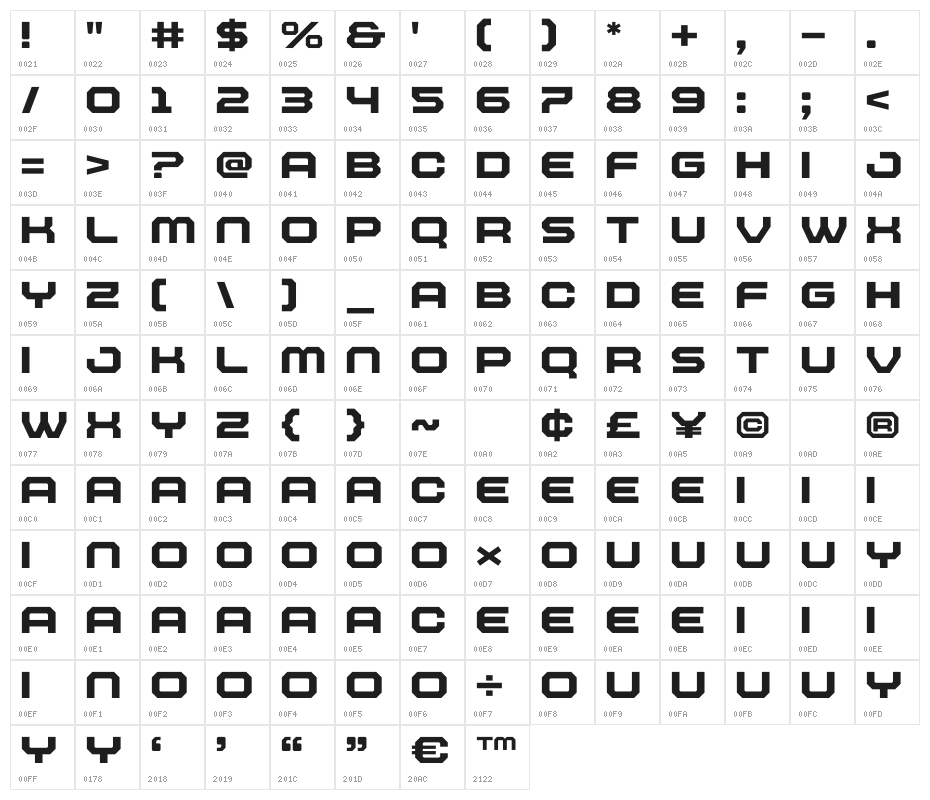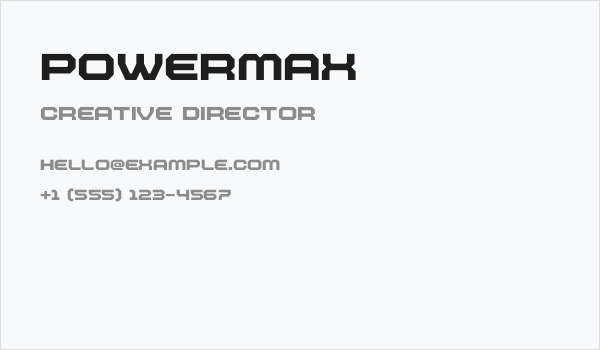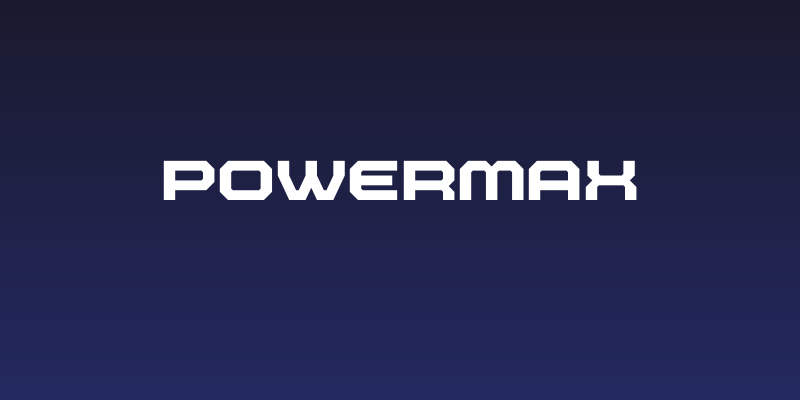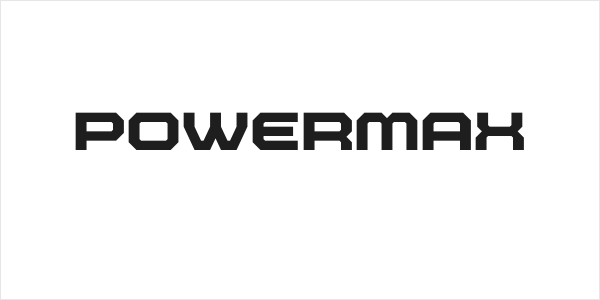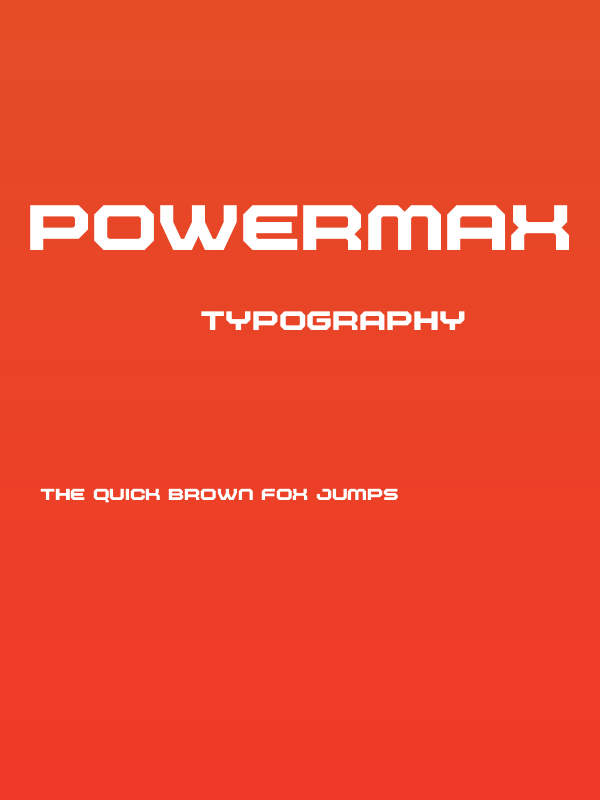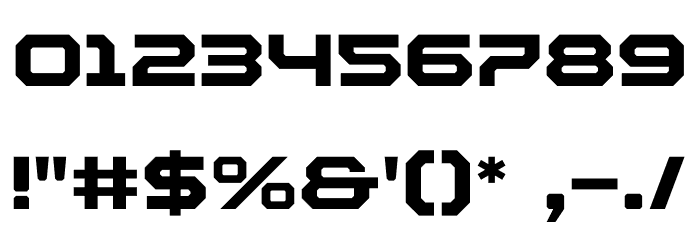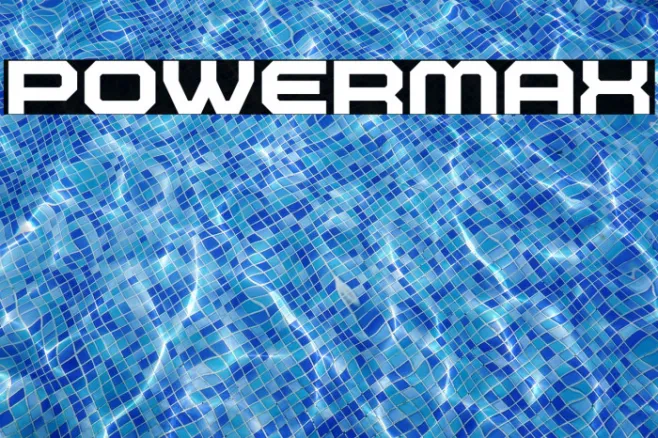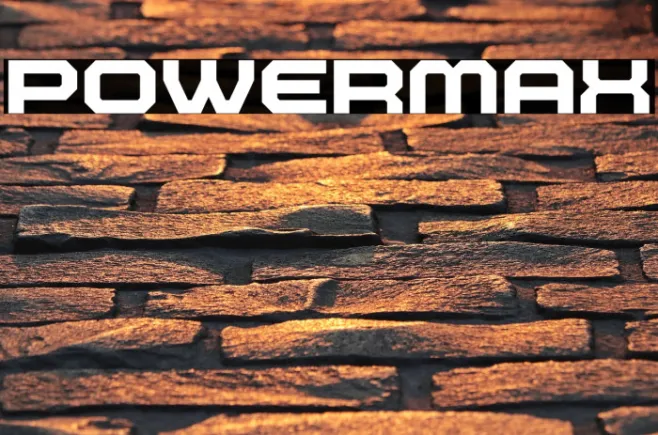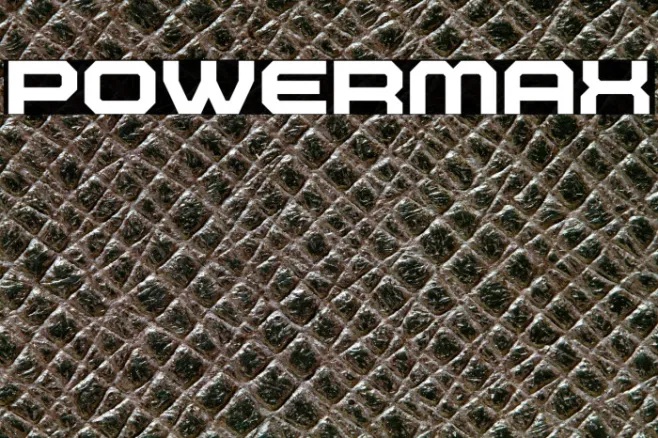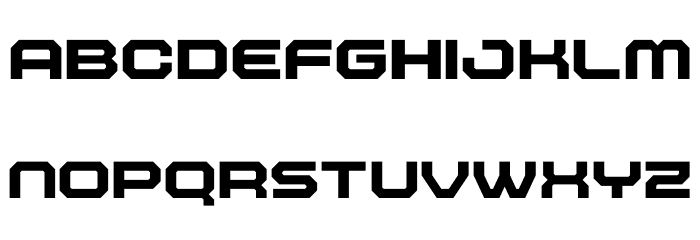
Powermax Font
Powermax Description
This font features a bold, geometric design with a futuristic and industrial feel. The characters are constructed with sharp angles and straight lines, creating a strong and assertive appearance. The uppercase and lowercase letters maintain a consistent style, emphasizing uniformity and precision. The numerals and special characters are designed to match the boldness of the alphabet, ensuring a cohesive look across all text. The font's distinct style makes it ideal for projects that require a modern and edgy aesthetic.
| Proposed Projects | Ideal for technology branding, video game titles, sci-fi movie posters, and modern advertising campaigns. |